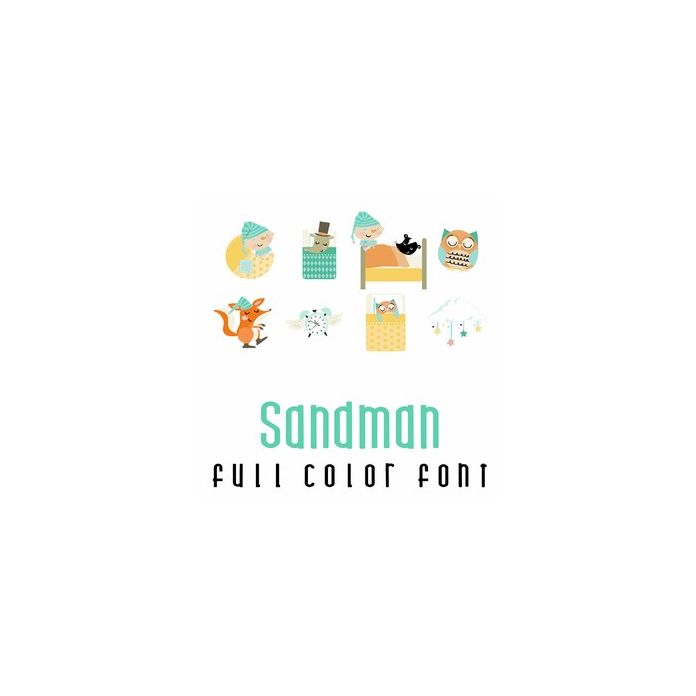
This adorable full-color doodlebat font features 26 bedtime images with Sandman and friends. Perfect for cards, crafts, gifts, decor, planner stickers, scrapbook pages and more!